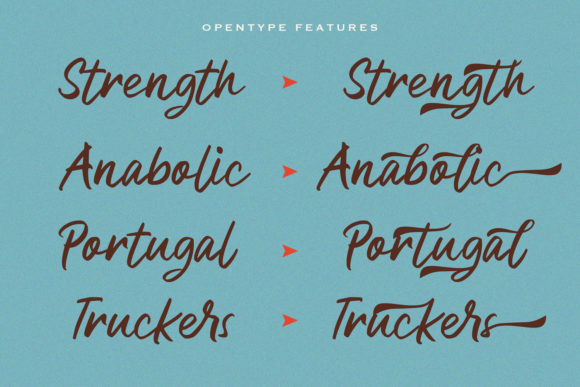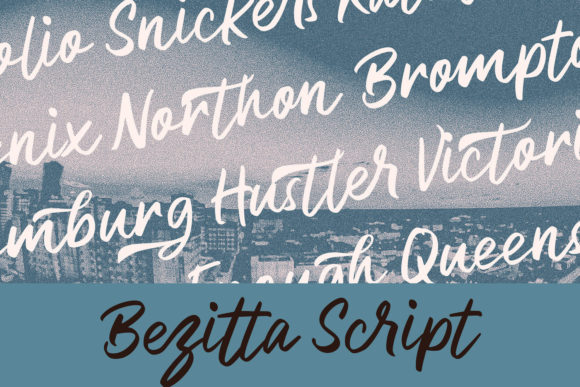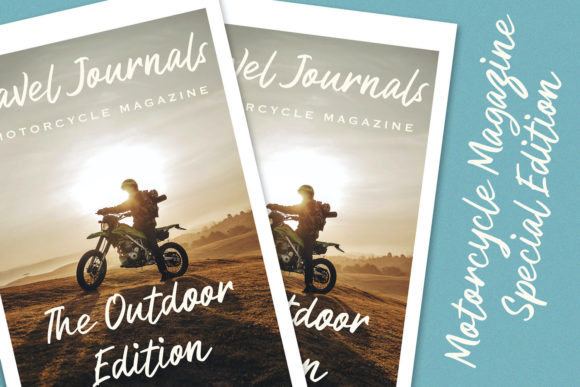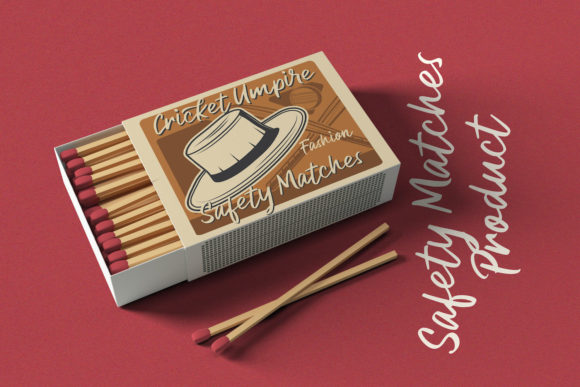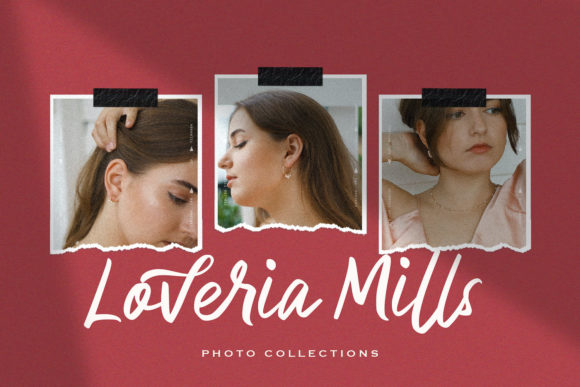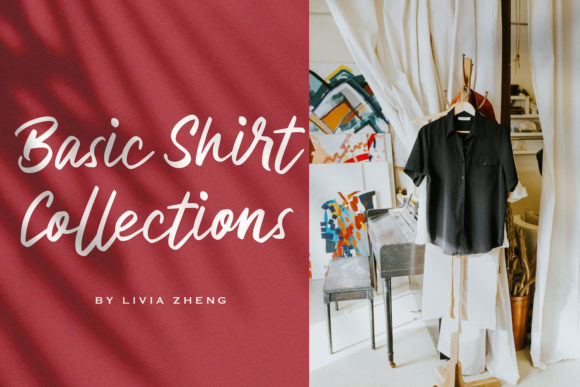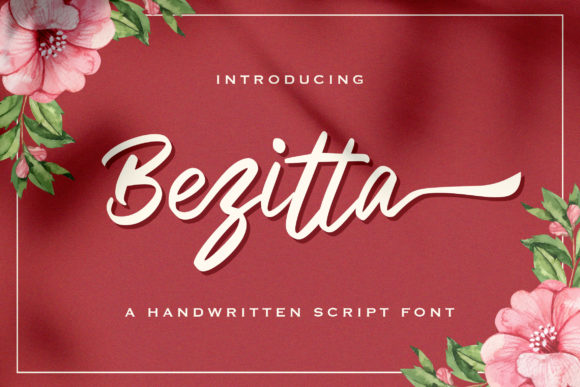
Introducing Bezitta Font: Elevate Your Designs with Elegance and Sophistication
In the world of typography, a font can make or break the aesthetic appeal of a design. For crafters, designers, and artists, finding the perfect font that conveys elegance and class can be a daunting task. However, if you’re looking for a lovely and delicate script font that exudes sophistication, look no further than Bezitta Font.
What is Bezitta Font?
Bezitta is a beautiful script font that has been carefully crafted to add a touch of elegance and refinement to your designs. This stunning font is perfect for those who want to create visually appealing and refreshing designs that stand out from the crowd. Whether you’re working on a branding project, creating social media graphics, or designing a website, Bezitta Font is the perfect choice.
Key Features of Bezitta Font
So, what makes Bezitta Font so special? Here are some of its key features:
- Lovely and Delicate Design: Bezitta Font boasts a lovely and delicate design that exudes elegance and class. Its intricate strokes and beautiful swashes make it perfect for designs that require a touch of sophistication.
- PUA Encoded: Bezitta Font is PUA (Private Use Area) encoded, which means you can access all of the glyphs and swashes with ease. This feature makes it easy to use and customize the font to suit your design needs.
- High-Quality Design: Bezitta Font is designed with high-quality and precision, ensuring that it looks stunning in any design.
Who Can Benefit from Bezitta Font?
Bezitta Font is perfect for a wide range of designers and crafters, including:
- Graphic Designers: Graphic designers can use Bezitta Font to create stunning branding materials, such as logos, business cards, and brochures.
- Web Designers: Web designers can use Bezitta Font to create beautiful and elegant website headers, titles, and descriptions.
- Social Media Influencers: Social media influencers can use Bezitta Font to create visually appealing social media graphics and posts.
- Crafters and Artists: Crafters and artists can use Bezitta Font to add a touch of elegance and sophistication to their craft projects, such as handmade cards, invitations, and art pieces.
In conclusion, Bezitta Font is a stunning script font that exudes elegance and class. Its lovely and delicate design, PUA encoding, and ease of use make it perfect for designers and crafters who want to create visually appealing and refreshing designs. Whether you’re working on a branding project, creating social media graphics, or designing a website, Bezitta Font is the perfect choice. So, why wait? Download Bezitta Font today and elevate your designs to the next level!